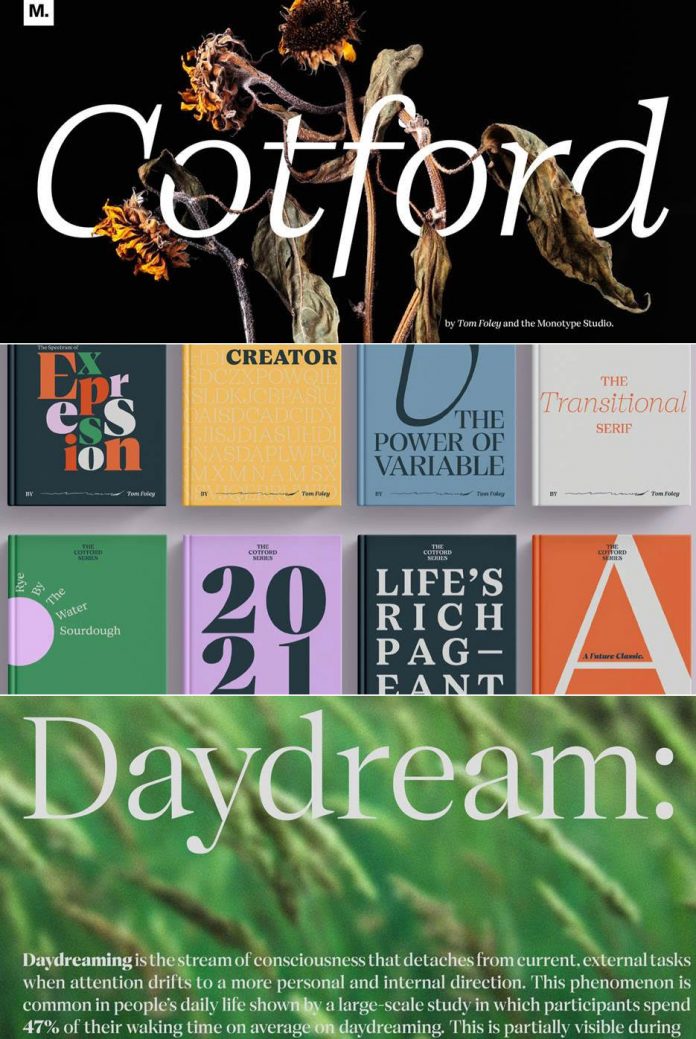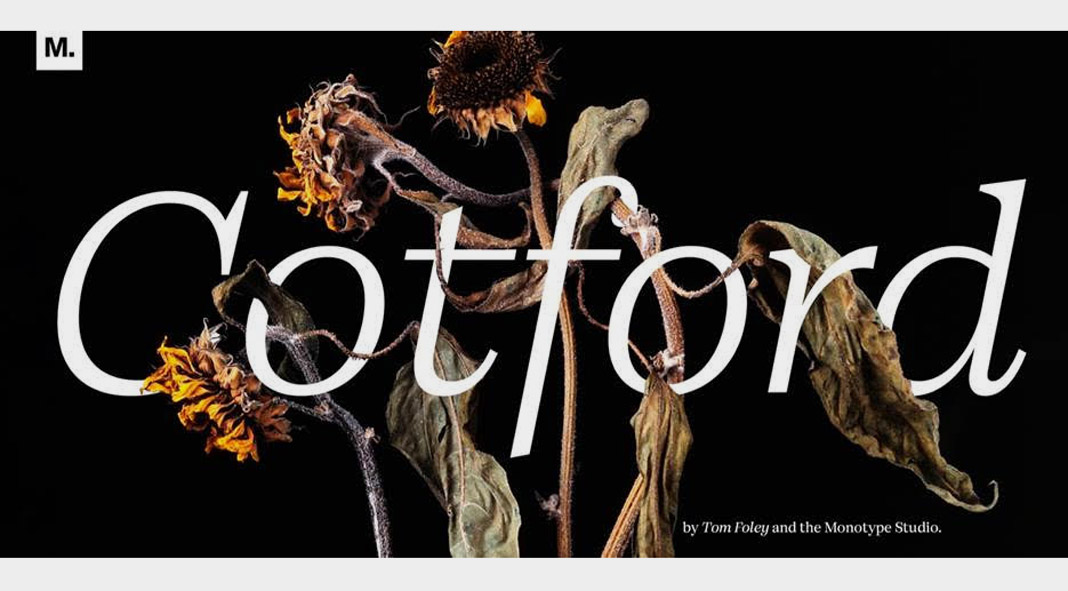
Cotford, a new typeface by Tom Foley and the Monotype Studio.
Just recently, Monotype released Cotford, a new typeface designed by Tom Foley and the Monotype Studio. This contemporary serif font is powered by variable technology to brands with endless options of expressions. With the attention to detail demanded by the 21st century, the Cotford font family is a celebration of simplicity, shape, and form.
“As digital branding has matured and evolved with changes in technology, companies are eager to embrace typography that is unique, human, and personal, but equally versatile and reliable. This is the context in which Cotford was conceived. The ambition was to design a contemporary serif typeface with the versatility and robustness that today’s designers and brands expect.”